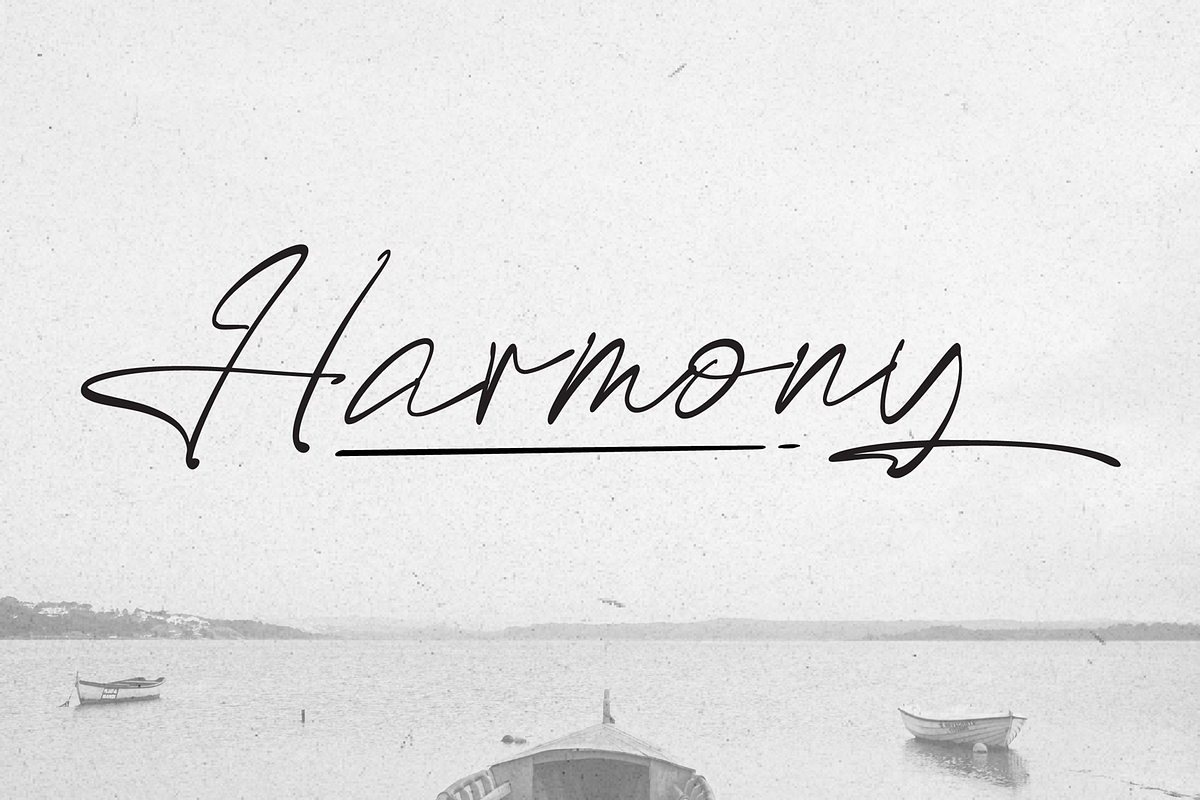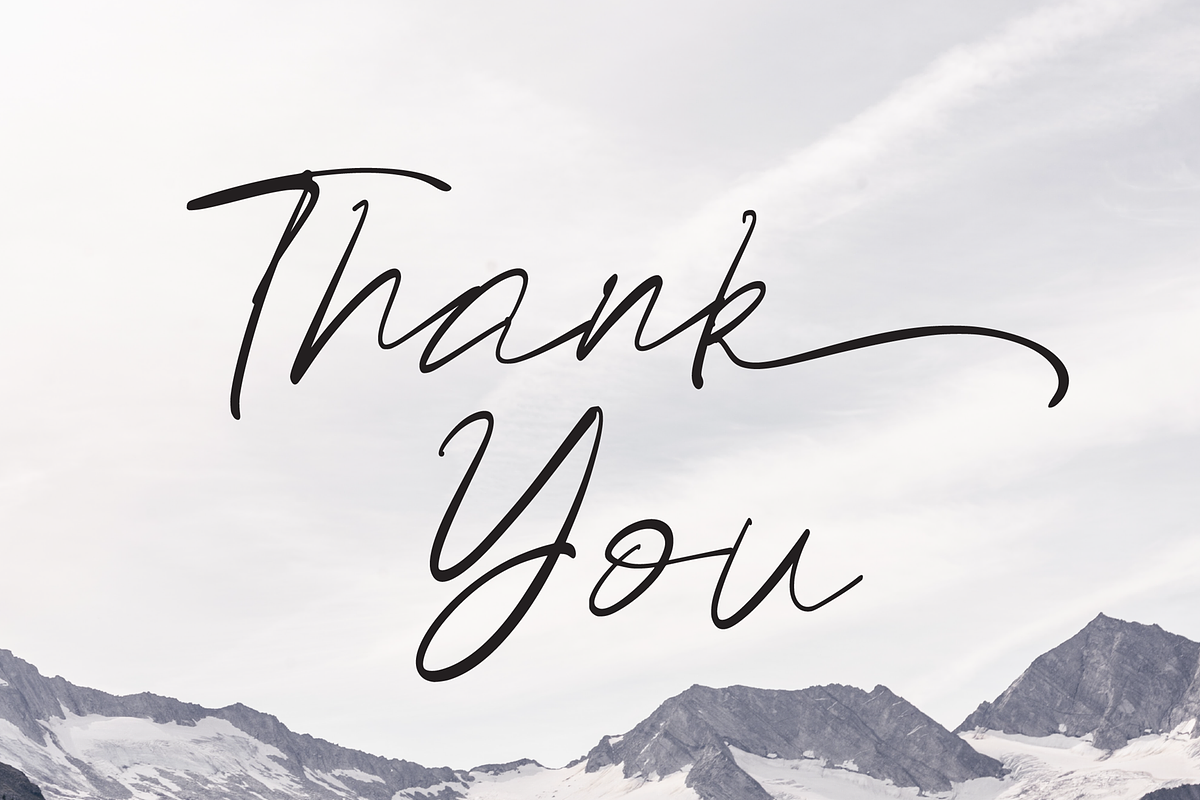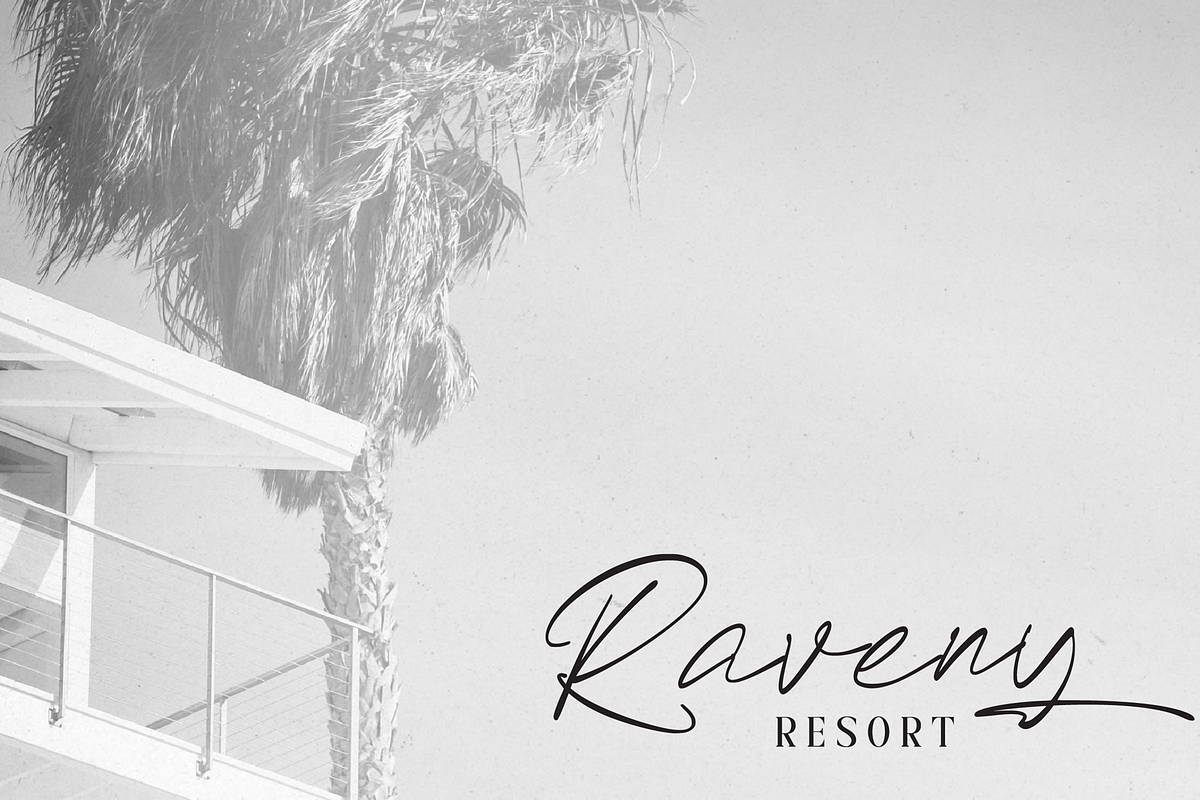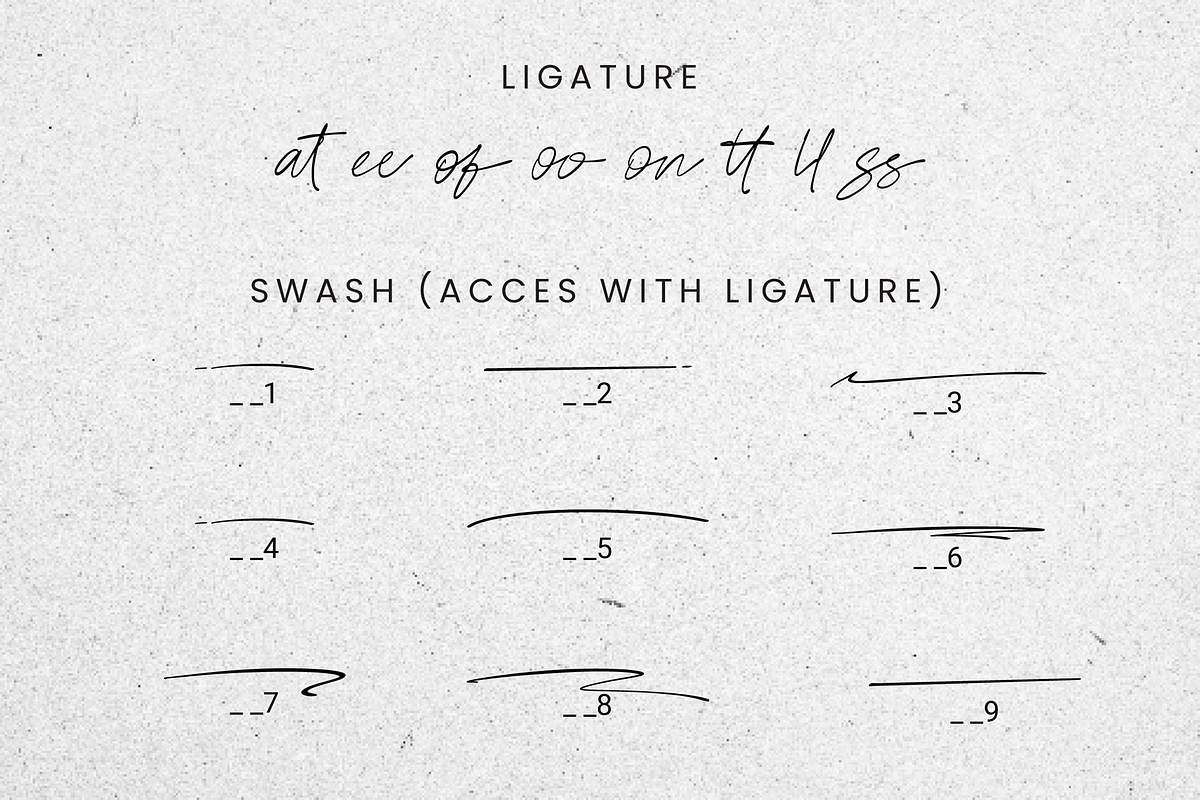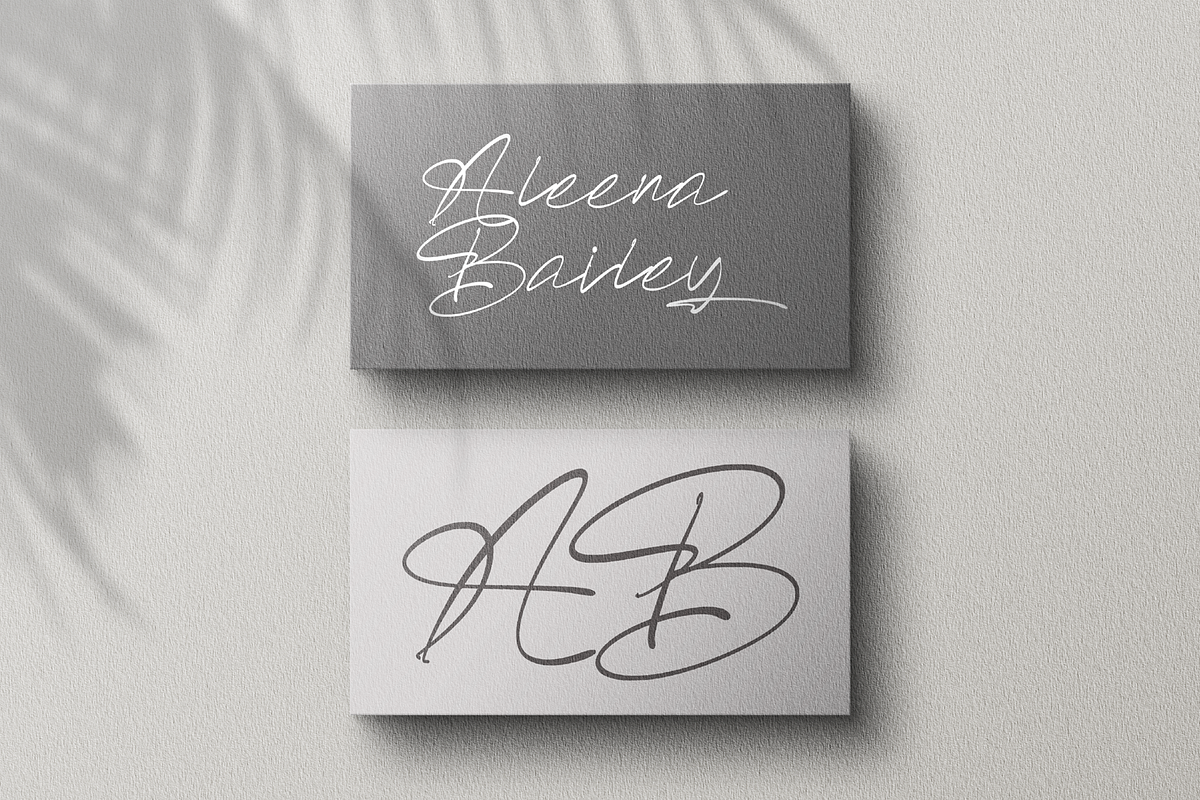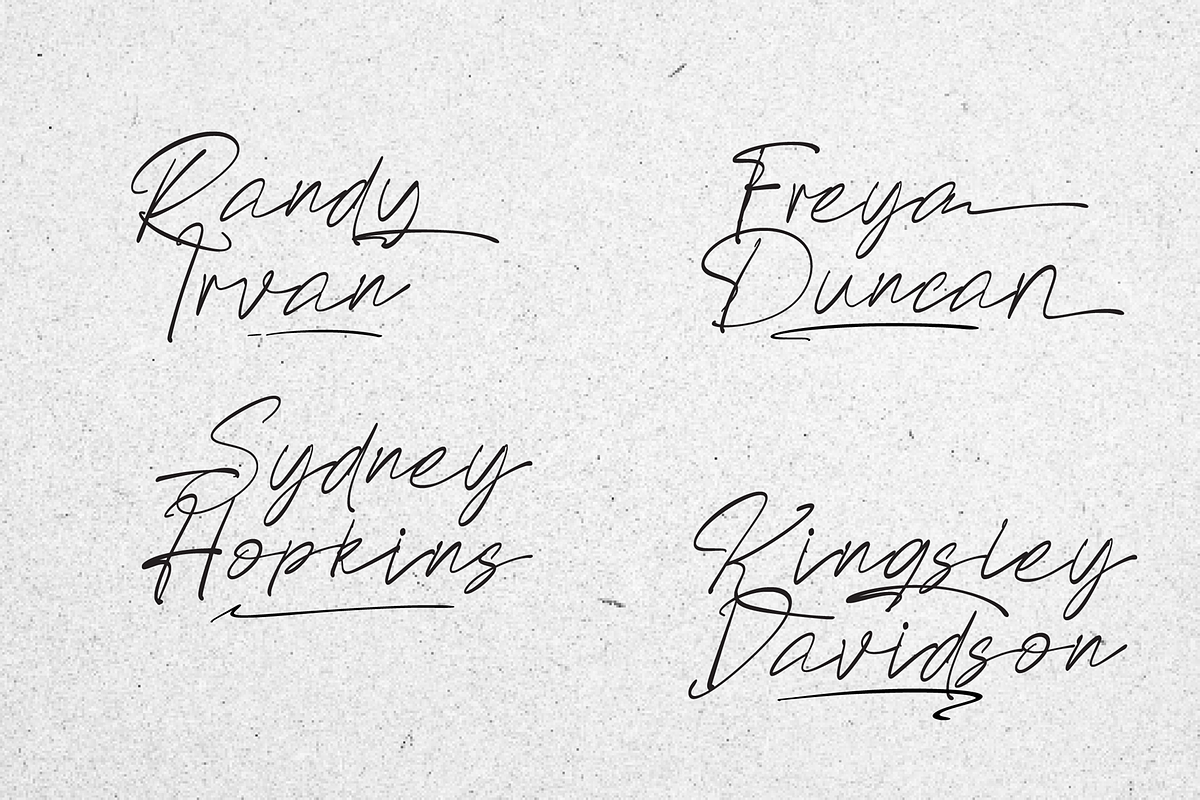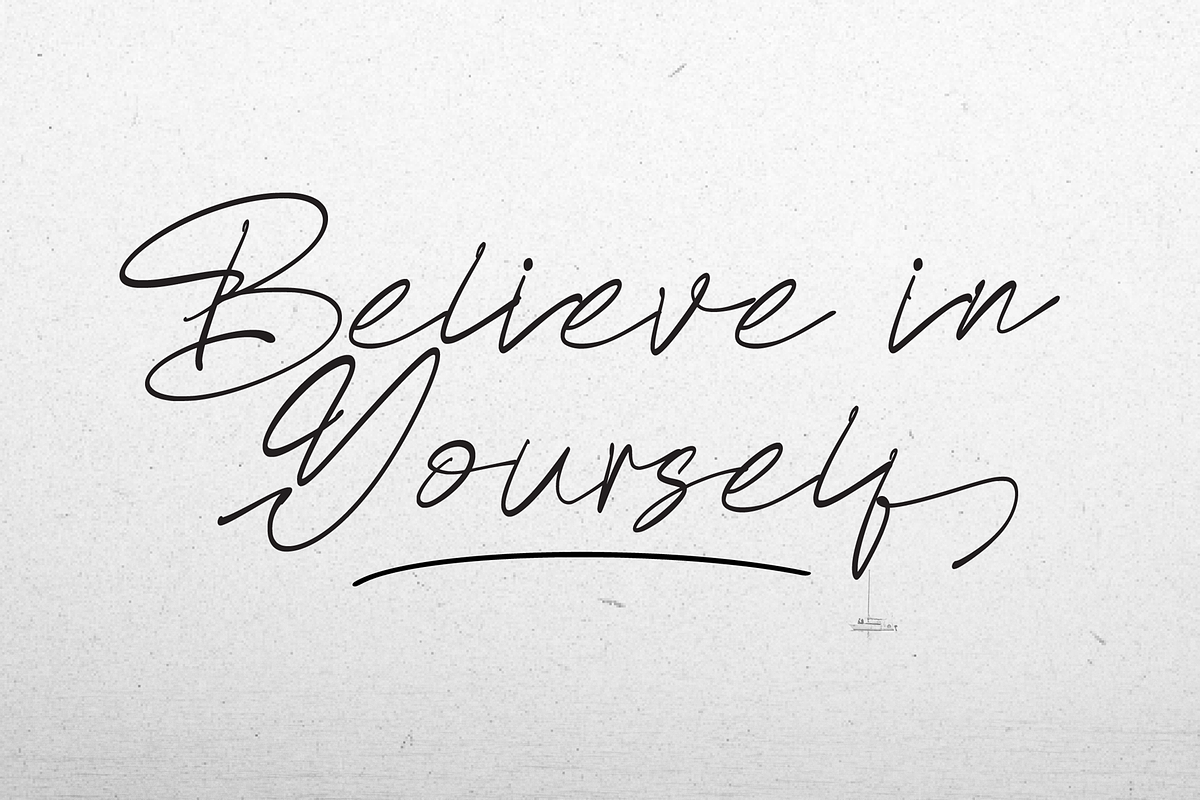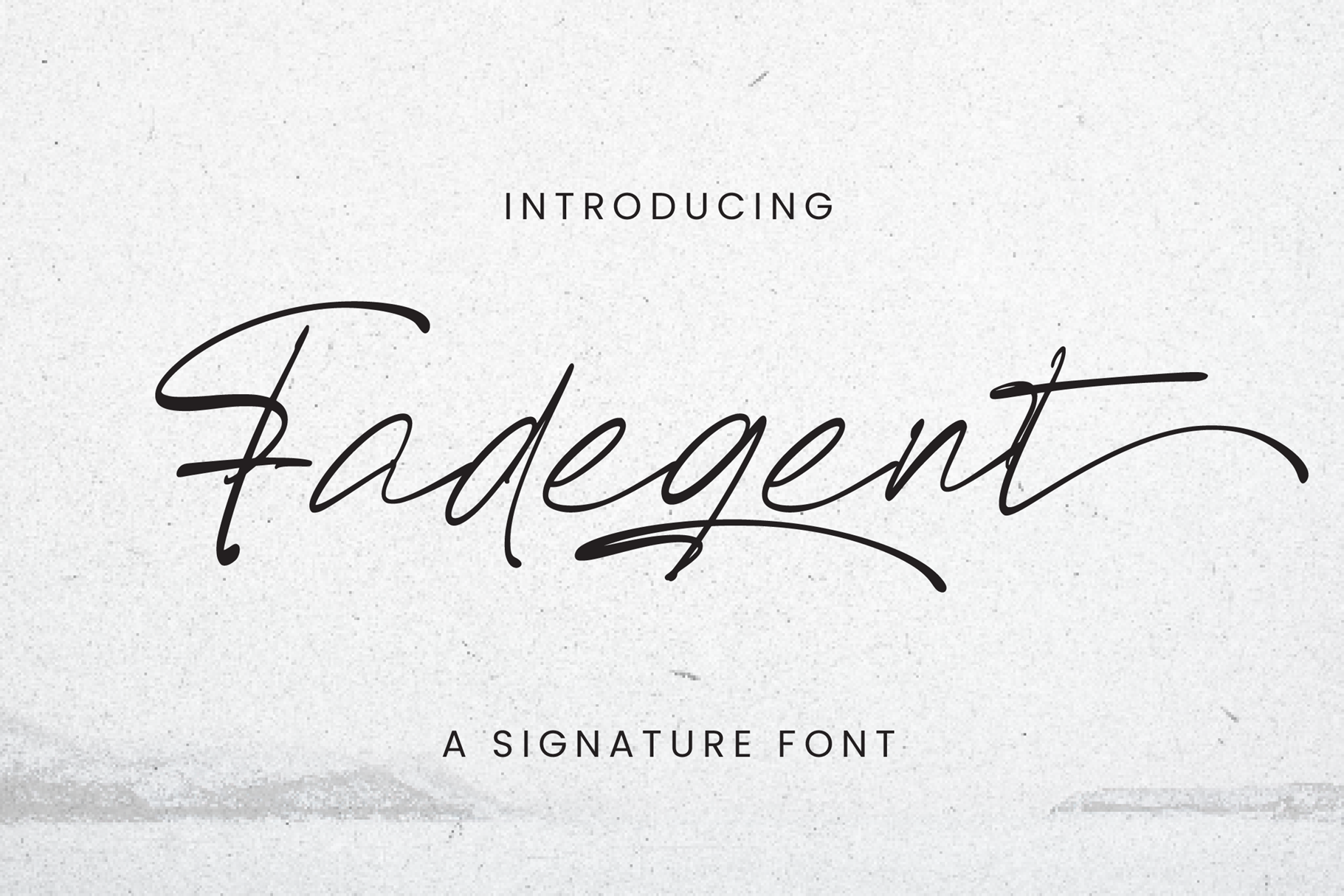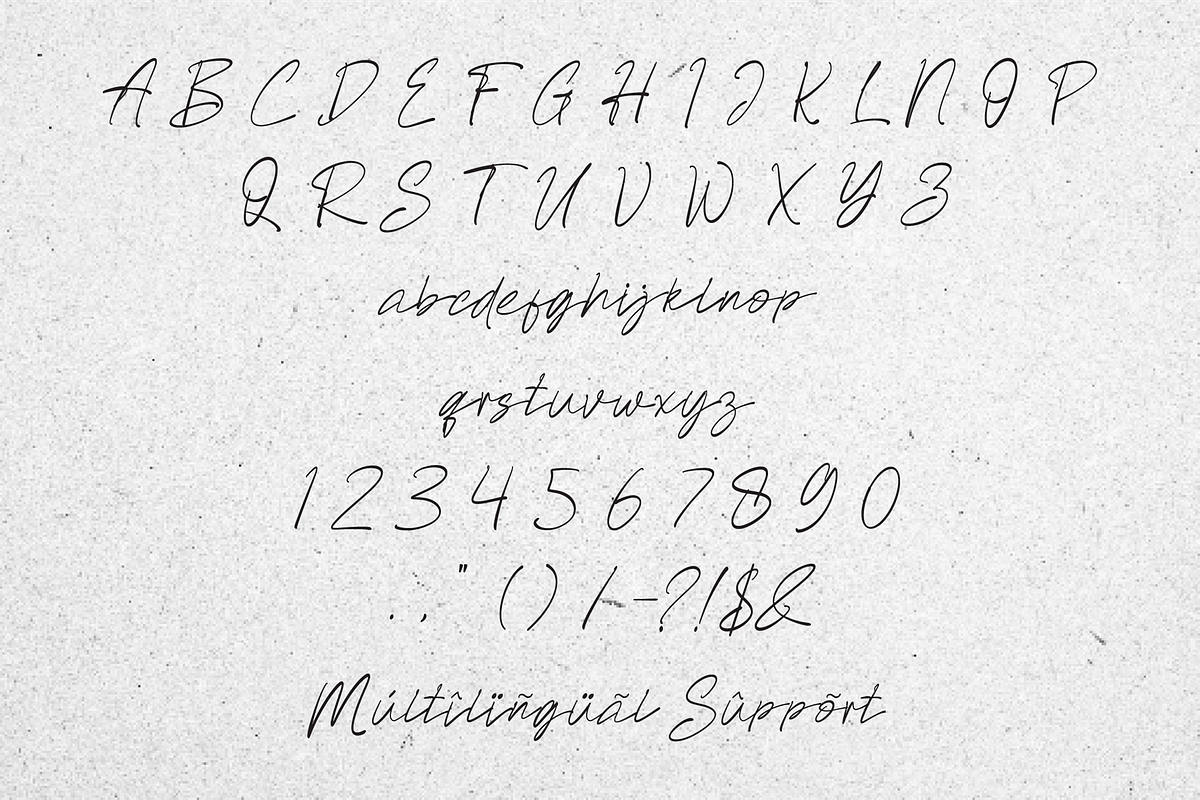
Fadegent - Signature Font
Introducing Fadegent Font, an elegant signature style font. With graceful strokes and refined curves, this font adds a touch of luxury to any design. Perfect for logos, branding, and upscale projects, Fadegent Font exudes effortless charm and sophistication.
Fadegent is fully PUA encoded, granting you easy access to an extensive array of glyphs and ligatures. Unleash your creativity and bring your ideas to life with unmatched ease and style.